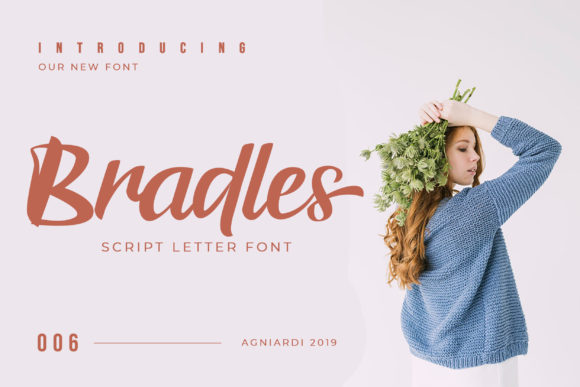
The Designer’s Delight: Exploring the Bold Charm of Bradles Font
I still remember the frustration of working on a design project, hours spent searching for the perfect font, only to end up with something that just didn’t quite fit. My client wanted a bold, eye-catching typeface that would give their brand a unique personality. That’s when I stumbled upon Bradles Font, a bold handwritten typeface that’s been a game-changer for many designers, including myself.
An Honest Review of Bradles Font
- ✨ Unique Character: Bradles Font has a distinct, hand-crafted feel that sets it apart from more generic fonts.
- ✅ Versatility: It’s suitable for a wide range of projects, from modern and sleek designs to vintage-inspired creations.
- 💡 Display Purposes: This font truly shines when used for display purposes, making it perfect for headlines, titles, and attention-grabbing text.
While Bradles Font is an excellent choice for many projects, there are a few things to keep in mind:
- 🤔 Legibility at Small Sizes: As with many bold, handwritten fonts, legibility can be an issue when using Bradles at very small sizes. It’s best used at larger sizes where its unique character can shine.
- ⚠️ Overuse: While Bradles is stunning, using it excessively can make your design look overwhelming. Balance is key.
If you like Bradles Font, you might also consider these alternatives:
- Kristi: A whimsical, handwritten font with a softer feel. Ideal for designs that require a more delicate touch.
- Maison Neue: A modern, geometric sans-serif font. Great for designs that need a clean, professional look.
- Pacifico: A beautiful, elegant script font. Suitable for designs that require a touch of sophistication.
- Great Vibes: A fun, adventurous script font. Perfect for designs that need a playful, energetic feel.
The Backstory of Bradles Font
The story behind Bradles Font is one of passion and creativity. Designed with the intention of creating a bold, eye-catching typeface, Bradles was crafted to bring a unique personality to any design project. While the exact details of its creation are not well-documented, it’s clear that the designer aimed to create a font that would stand out in a crowd.
Q: Is Bradles Font suitable for body text?
A: While Bradles is stunning for display purposes, it’s not the best choice for body text due to its bold nature and potential legibility issues at smaller sizes.
Q: Does Bradles Font support OpenType features?
A: Yes, Bradles Font supports OpenType features, including stylistic alternates and glyphs, which can add variety and creativity to your designs.
Q: Is Bradles Font available in different weights?
A: The availability of different weights for Bradles Font may vary. It’s best to check with the font’s creator or distributor for specific details.